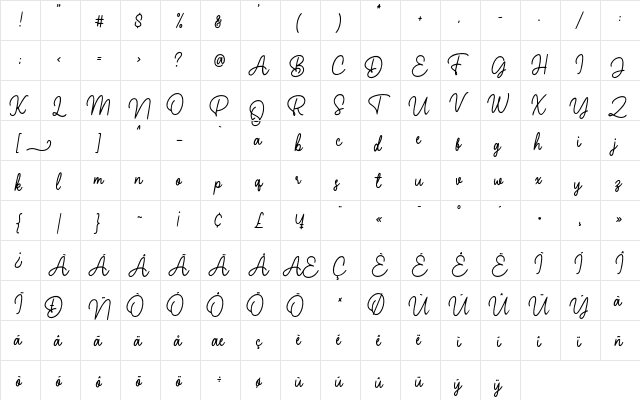
Hearthline Regular
Design Context for Hearthline Typeface
Hearthline is a composed and adaptable typeface that performs quietly and consistently across a wide range of design contexts.